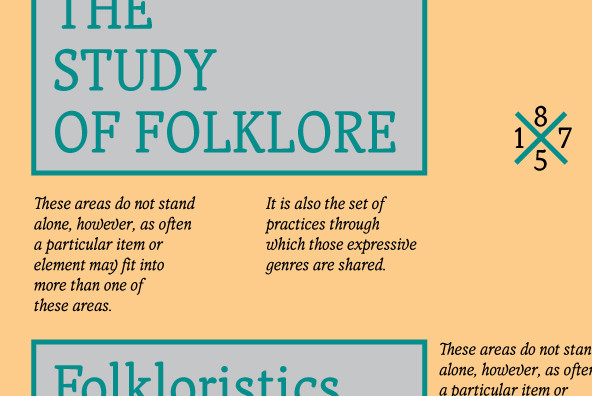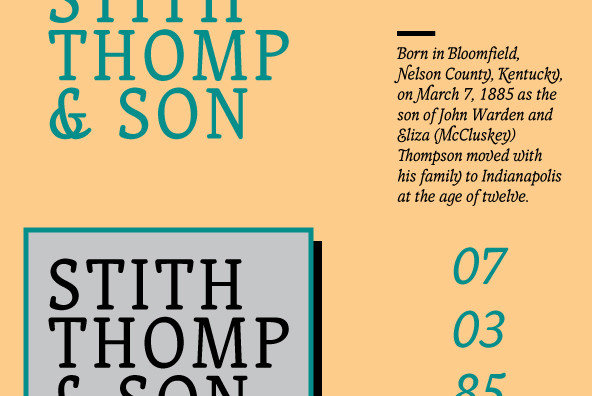
Telltale
Telltale is classic serif design made for headline and text use mainly. Contains two styles, book and italic, that work together quite beautifully when used together at different point sizes.